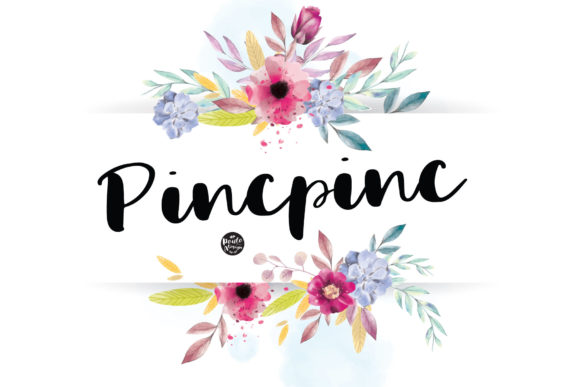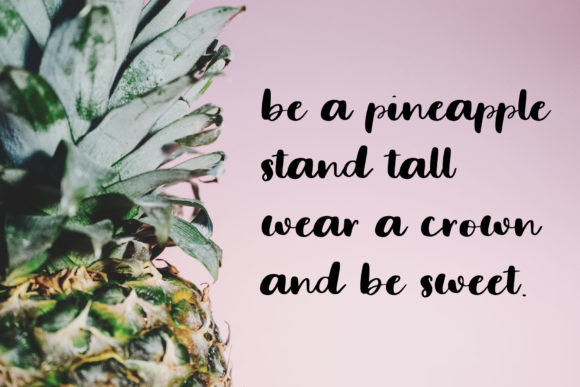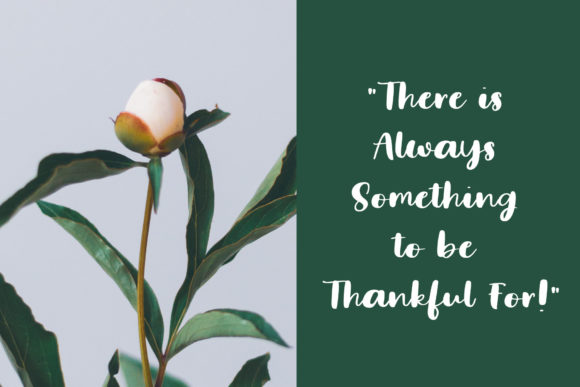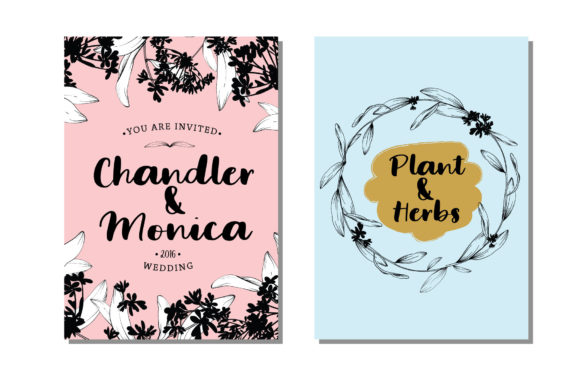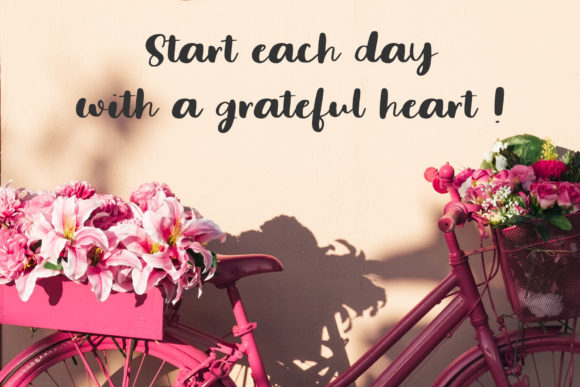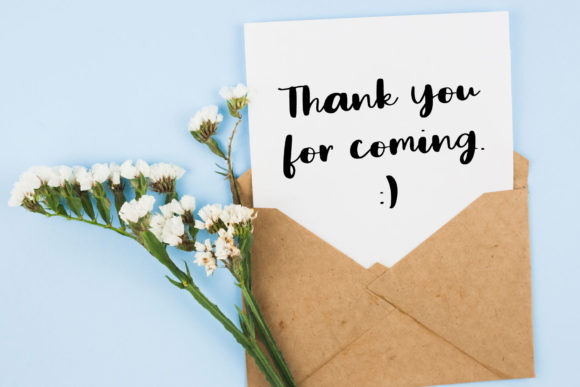
Pincpinc Font
About Pincpinc Font
The Pincpinc is a casual script font. It’s perfect for adding a feminine touch to your logos, printed quotes, wedding invitations, greeting cards, branding, blog posts, and much more!